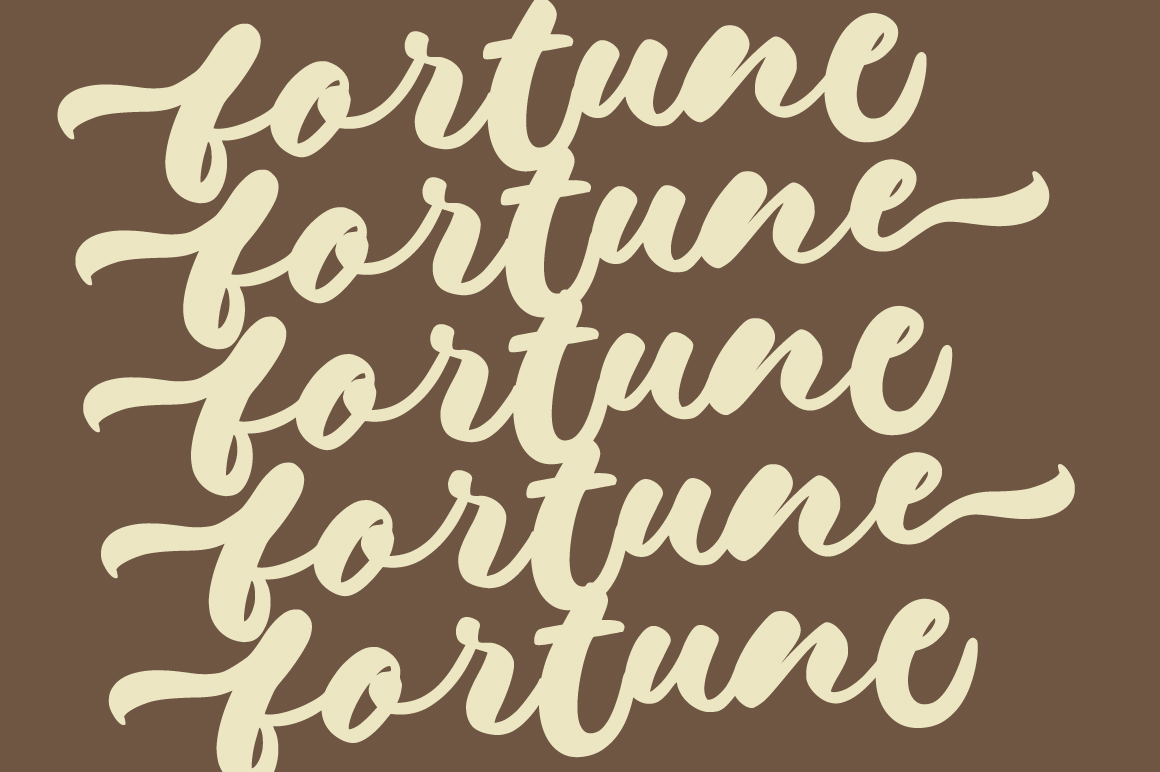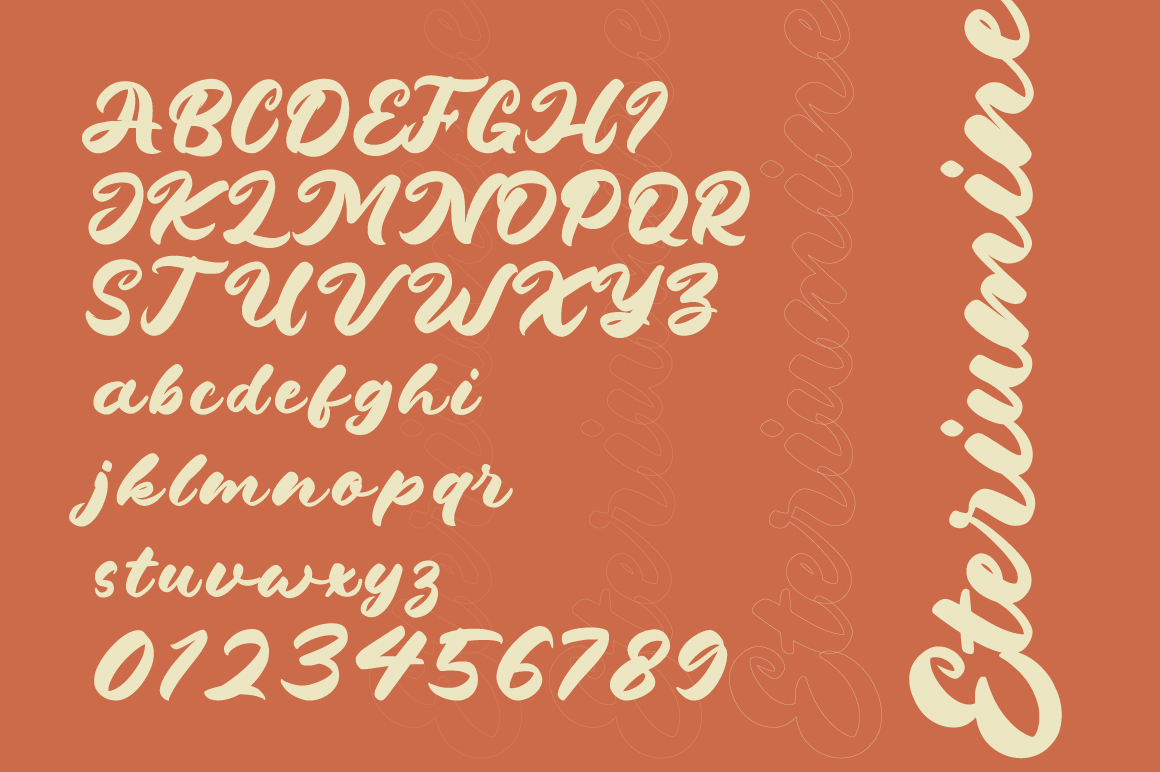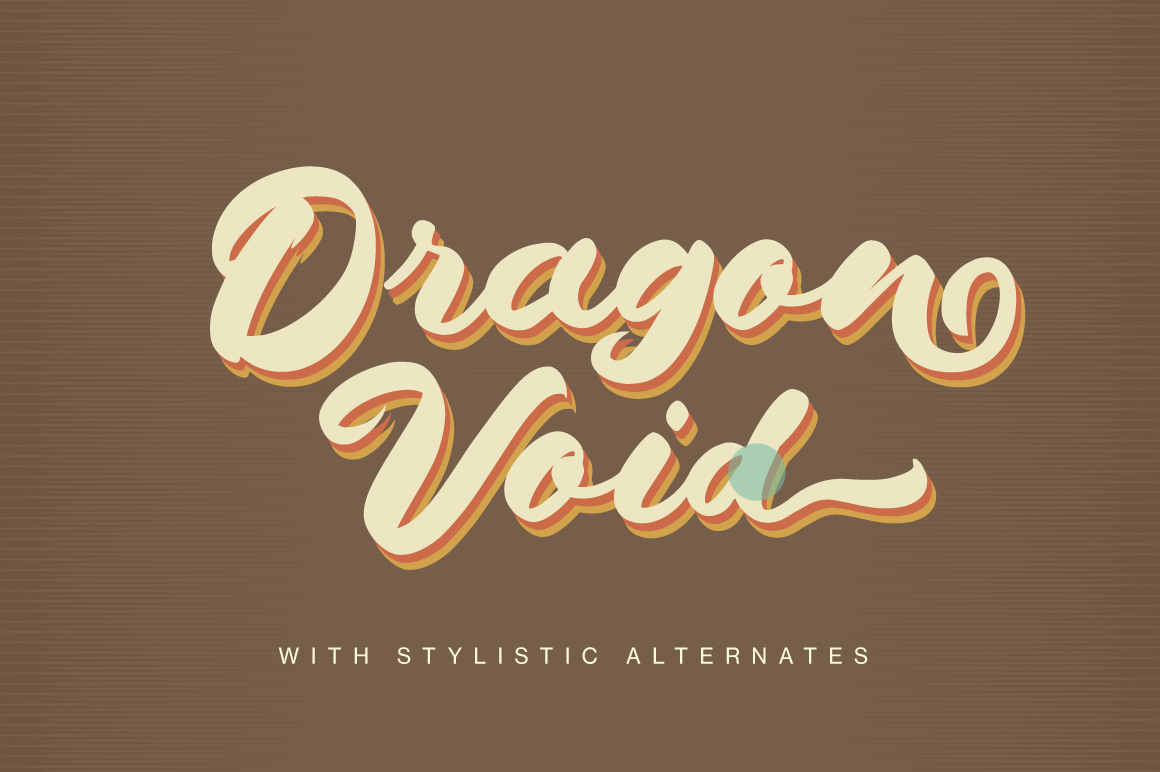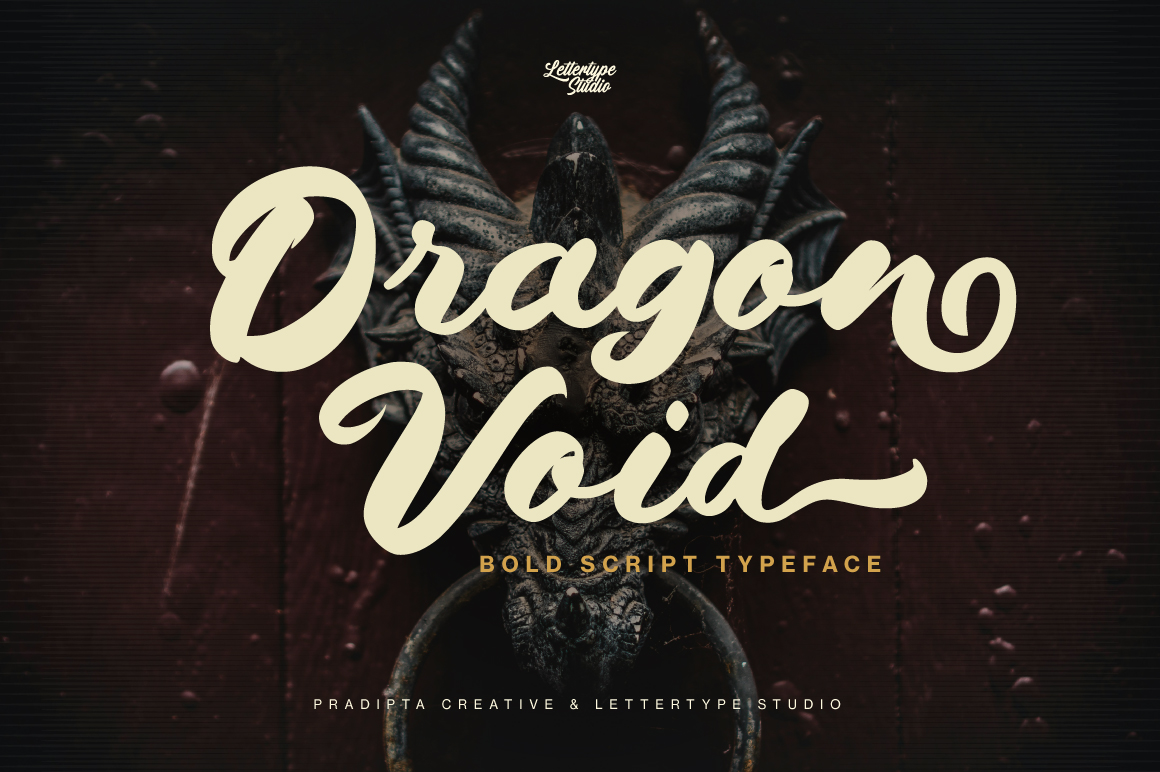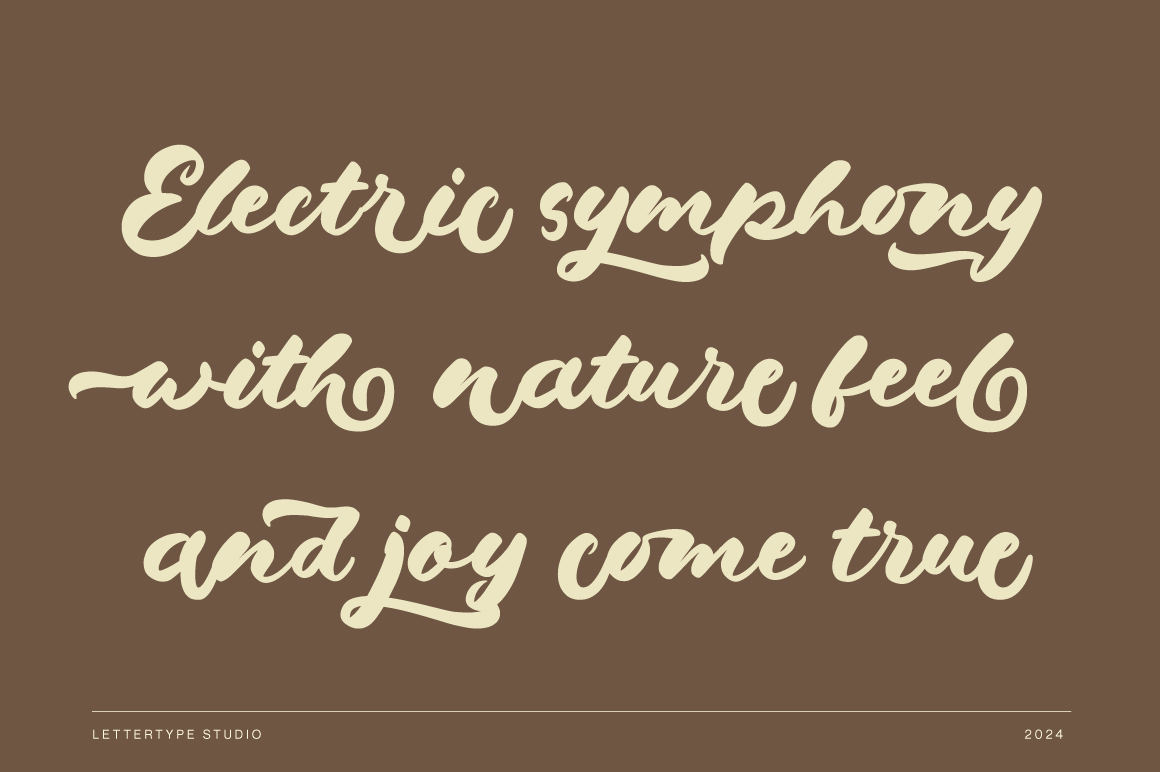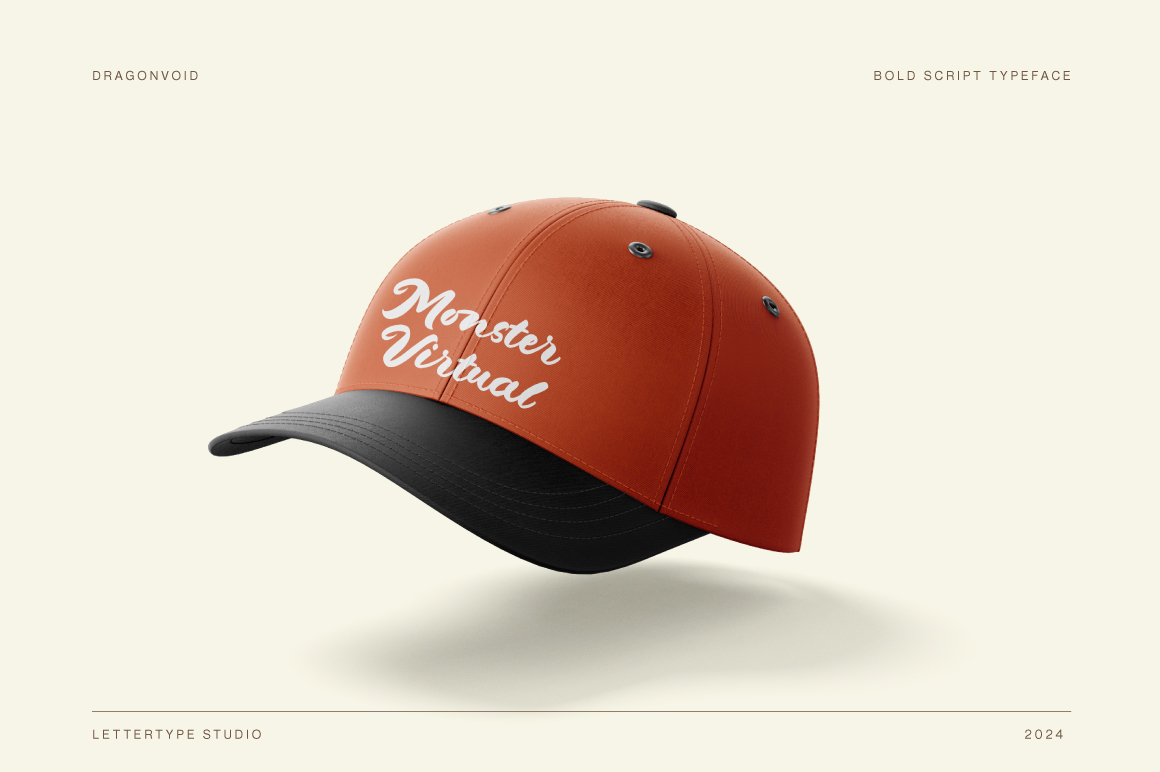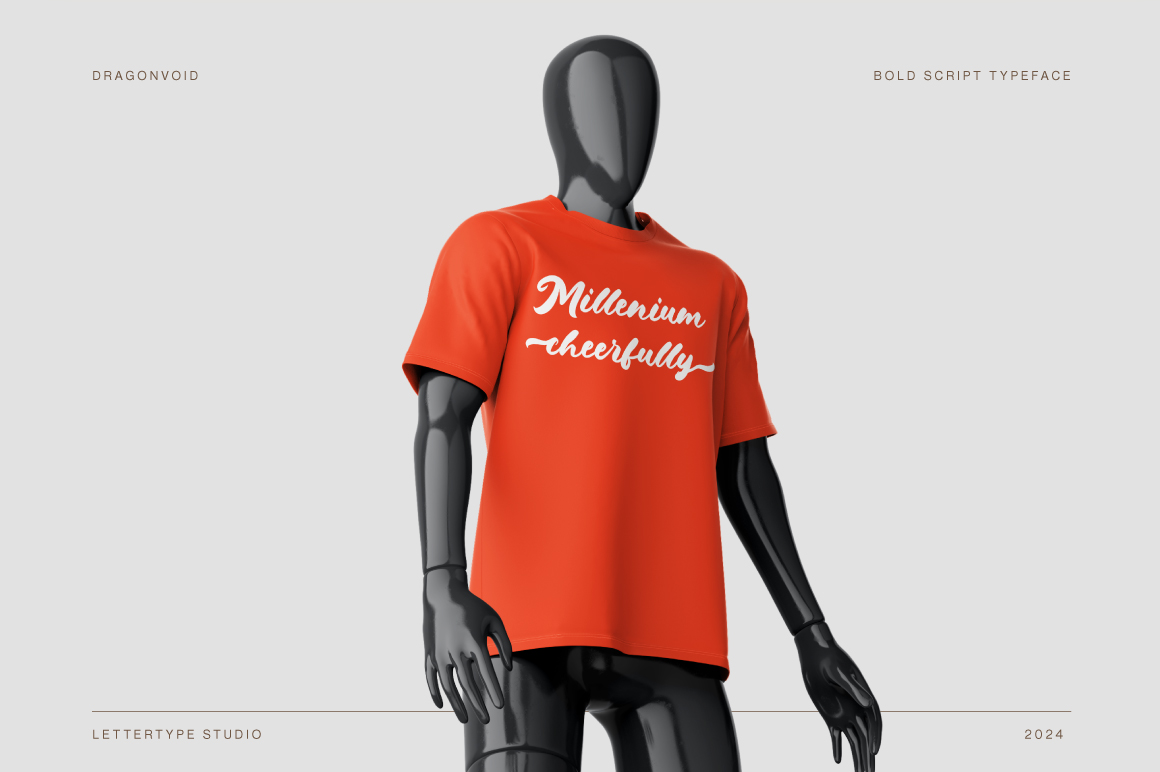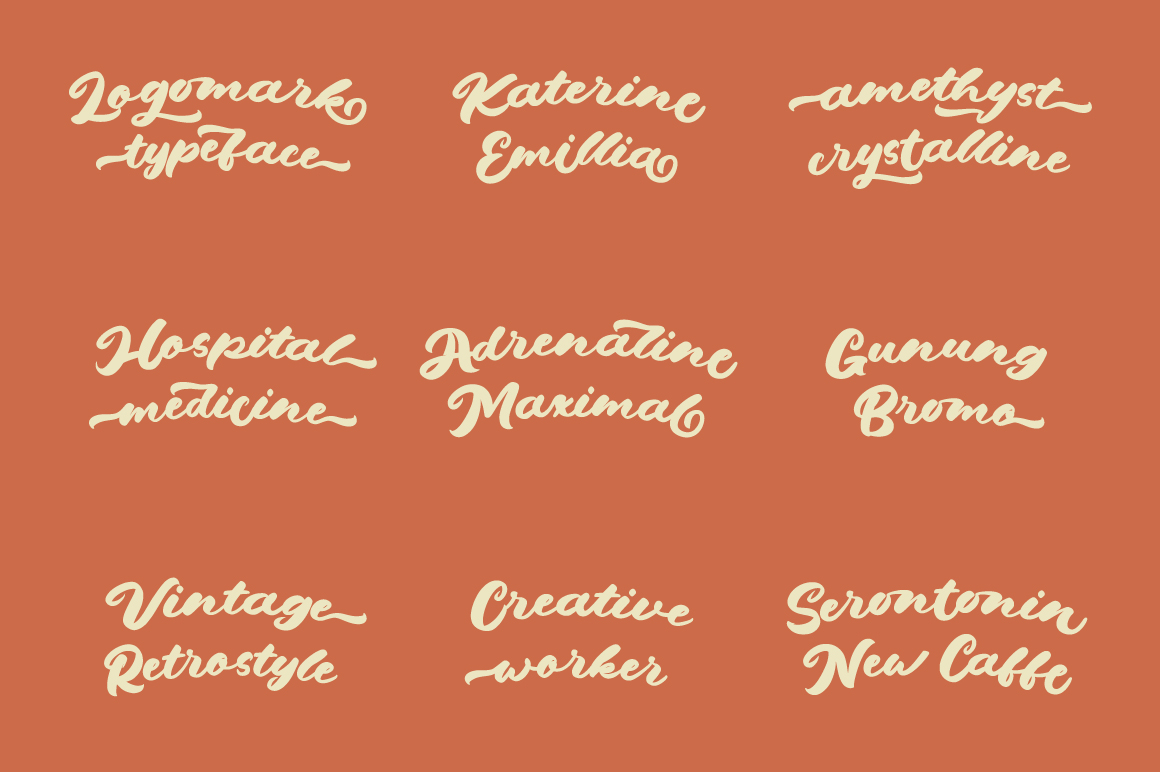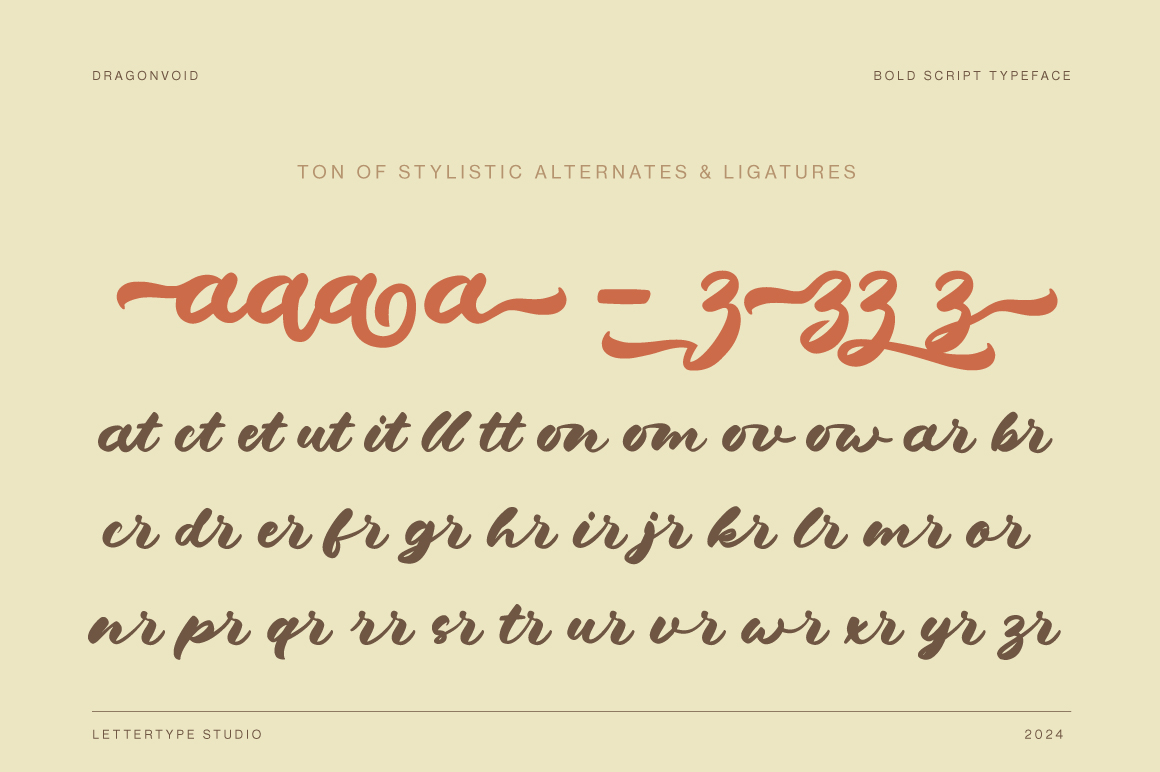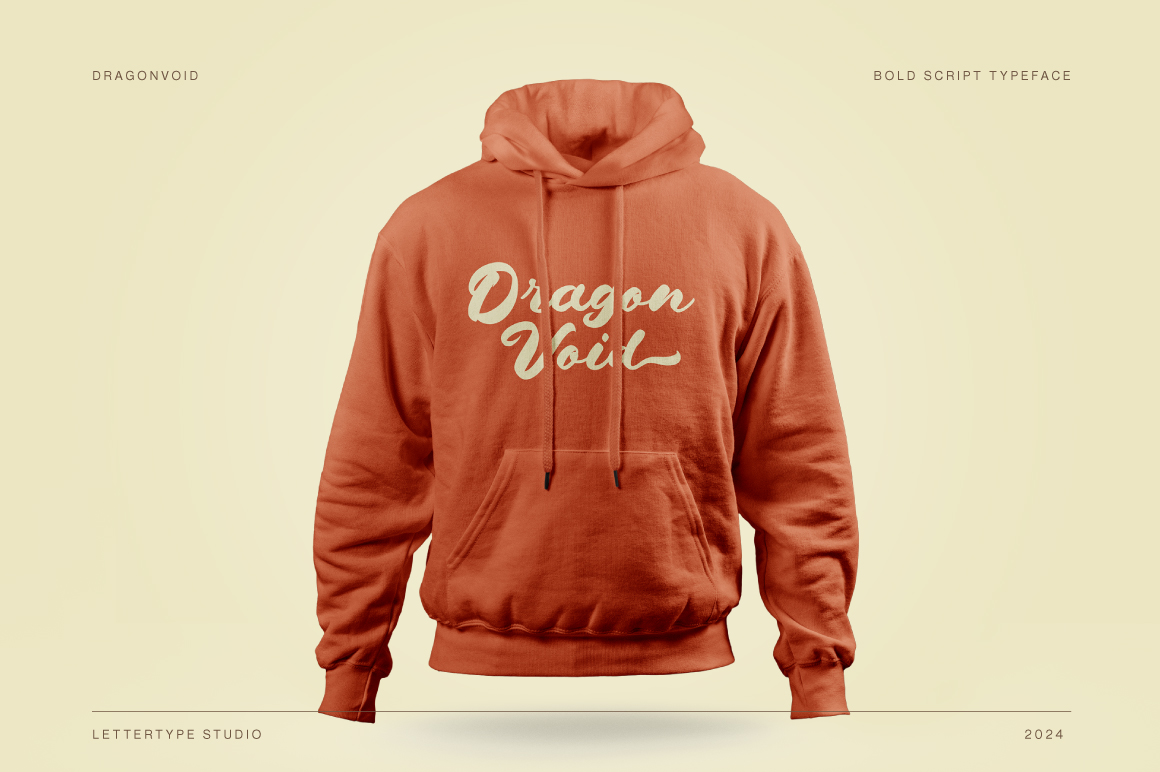
Dragonvoid
Dragonvoid is a bold retro handmade script font that combines nostalgic charm with a strong modern presence. Designed with expressive curves and natural flow, it offers plenty of stylistic alternates and ligatures to create authentic and personalized lettering.
Perfect for logos, apparel, packaging, invitations, and social media branding, Dragonvoid adds personality and confidence to every design. Whether you’re crafting vintage aesthetics or bold statement graphics, this font delivers energy and attitude with handcrafted precision.